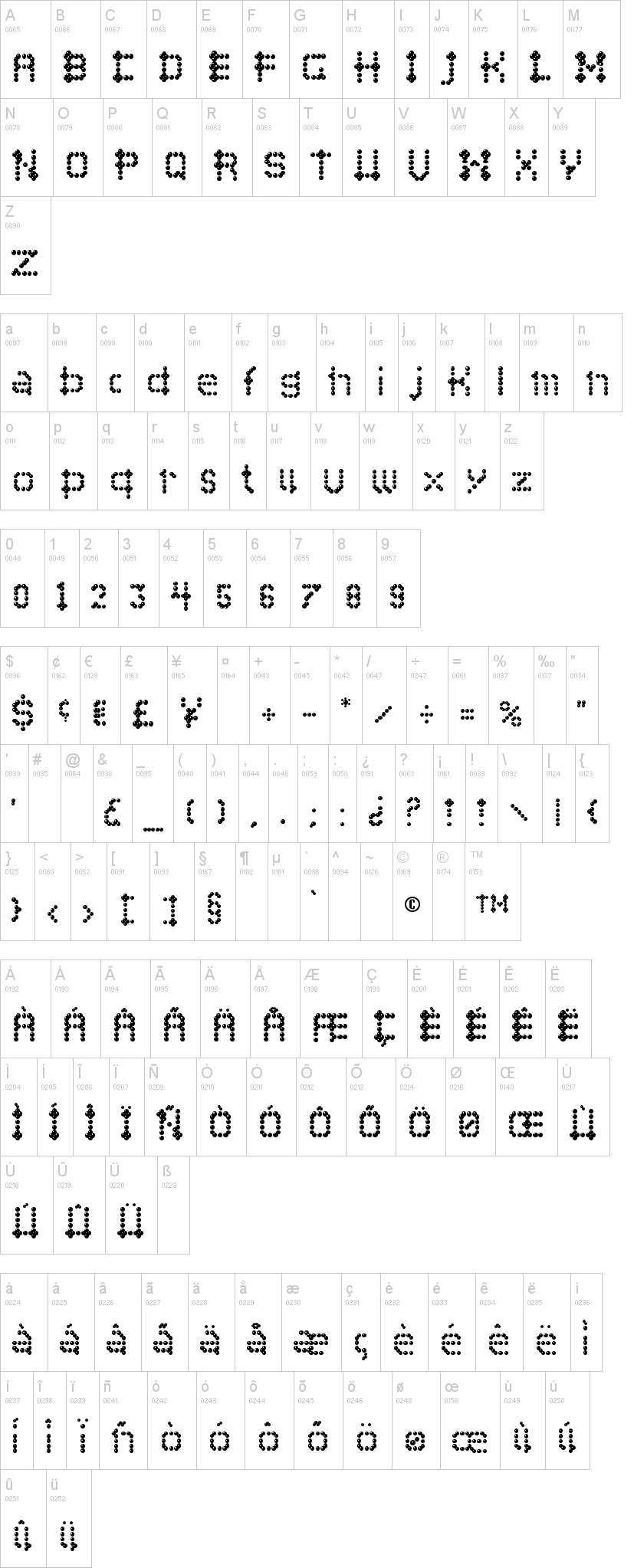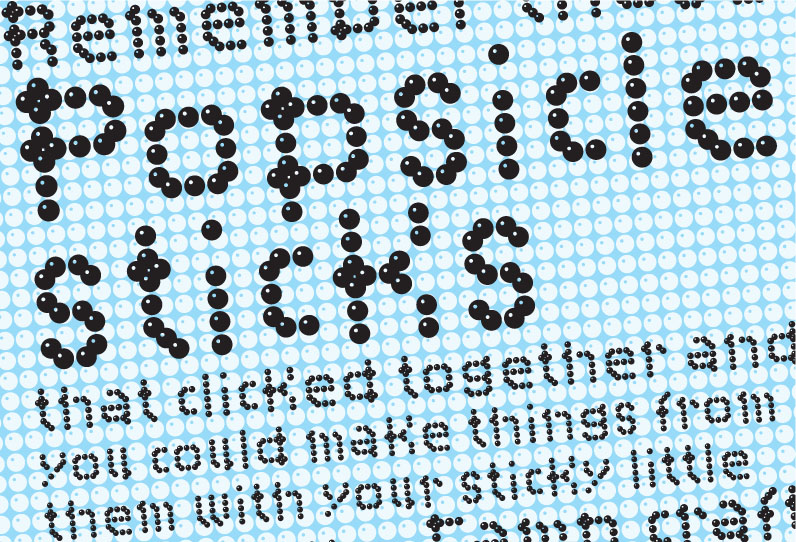
Note of the authorCampcraft Basic
Remember those Popsicle sticks that clicked together and you could make things from them with your sticky little fingers, like... Camp crafts? Well, no. Of course you don't. You were too young. That's why there is Campcraft.